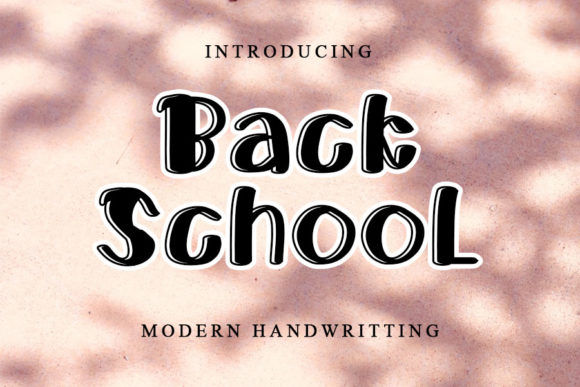
Jump into the world of creativity with Back School Font! This enchanting display font, crafted by shiddiq.art, is a whimsical and charming choice for any design seeking a playful touch. Its cursive J dances with a graceful flair, capturing the essence of childhood innocence and wonder.
Unleash your imagination with Back School Font. Its playful curves and charming personality will add a captivating touch to your designs. Whether it's for children's games, cartoonish creations, or any project craving a dash of whimsy, this font is sure to enchant.
Immerse yourself in a world where creativity knows no bounds. Back School Font is an invitation to explore the extraordinary and embrace the joy of artistic expression. Its unique character will make your designs stand out, leaving a lasting impression on your audience.
Don't miss out on this enchanting font that will transform your designs into captivating masterpieces. Embrace the magic of Back School Font and let your imagination soar!